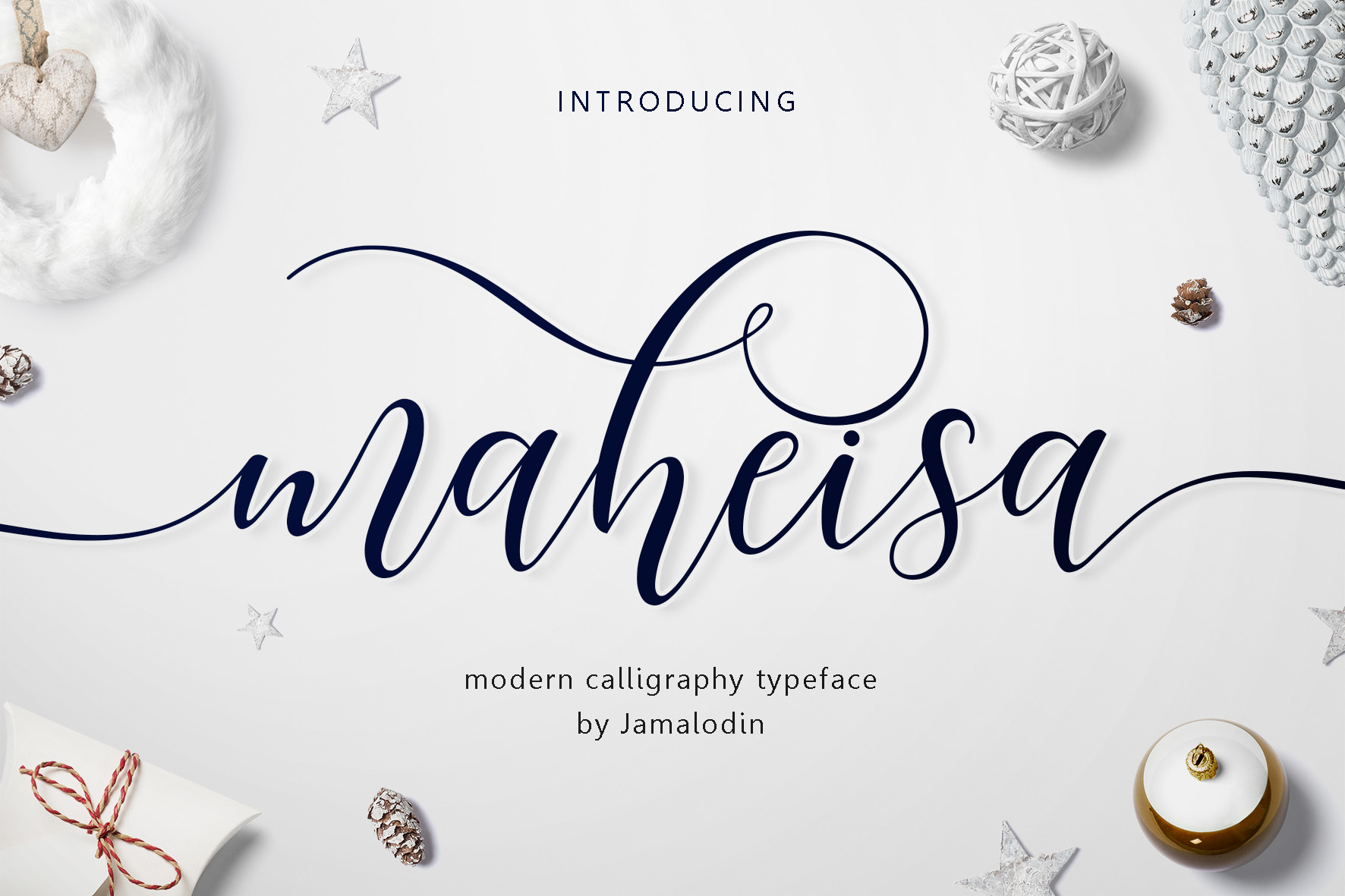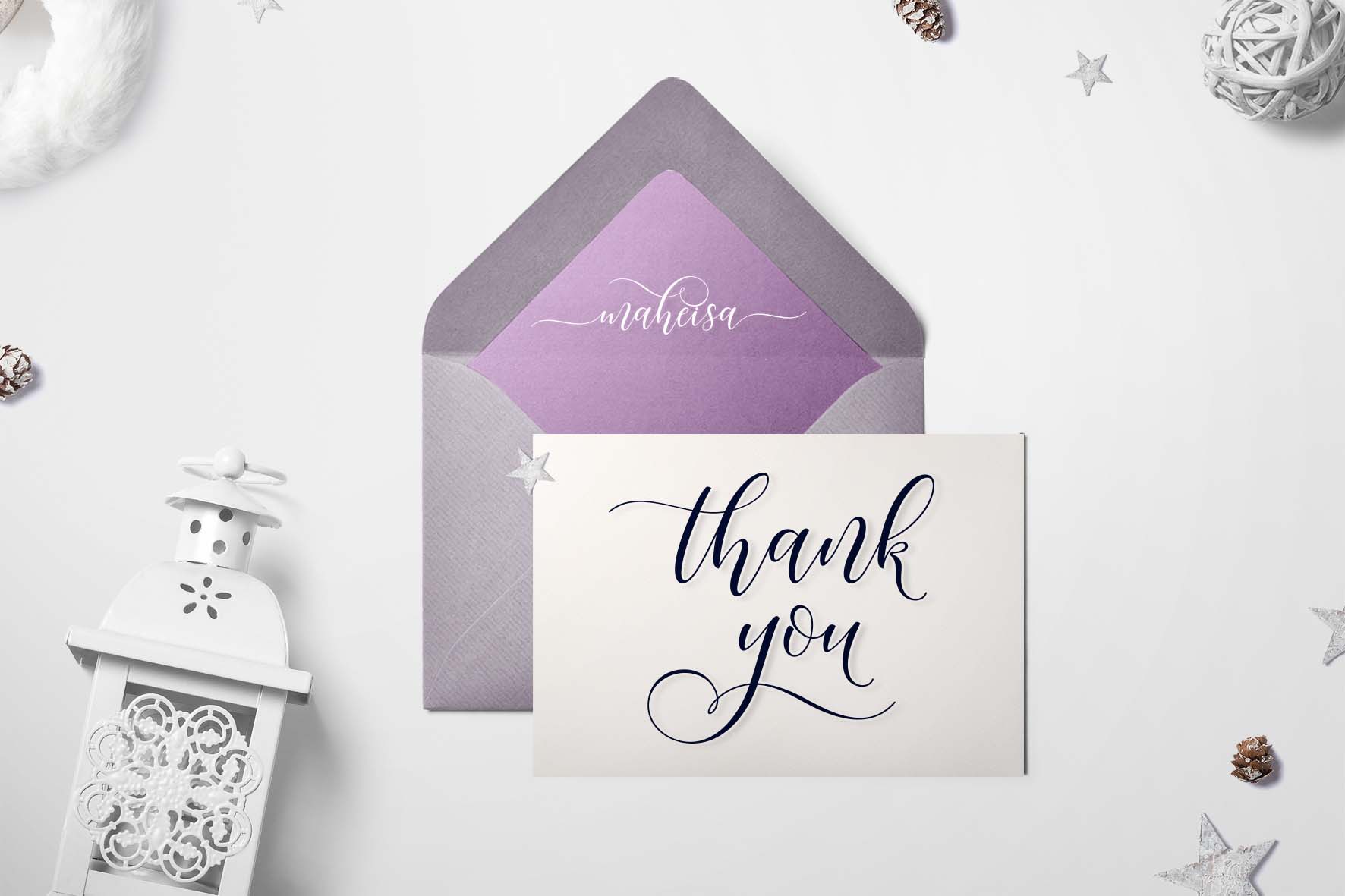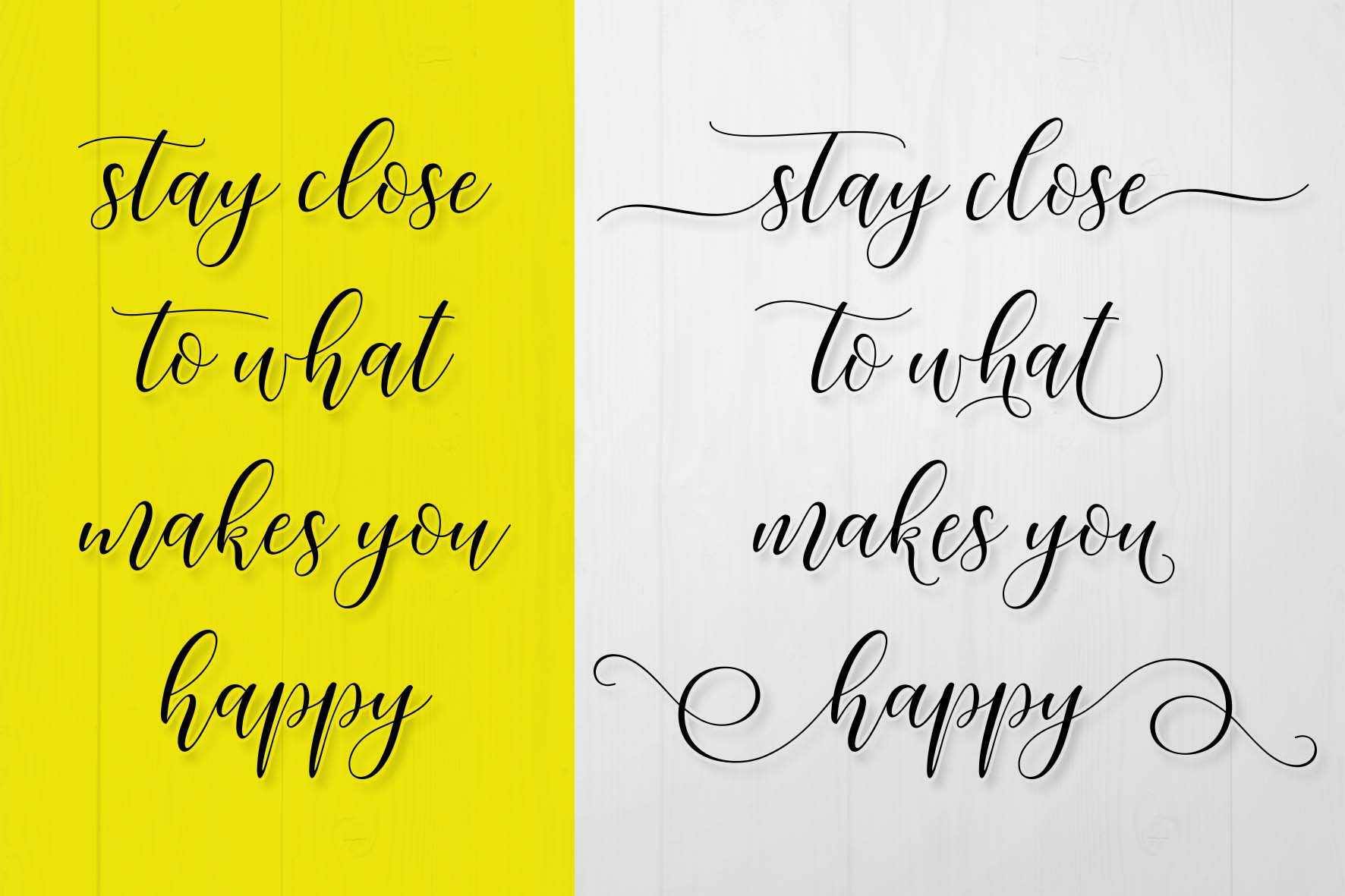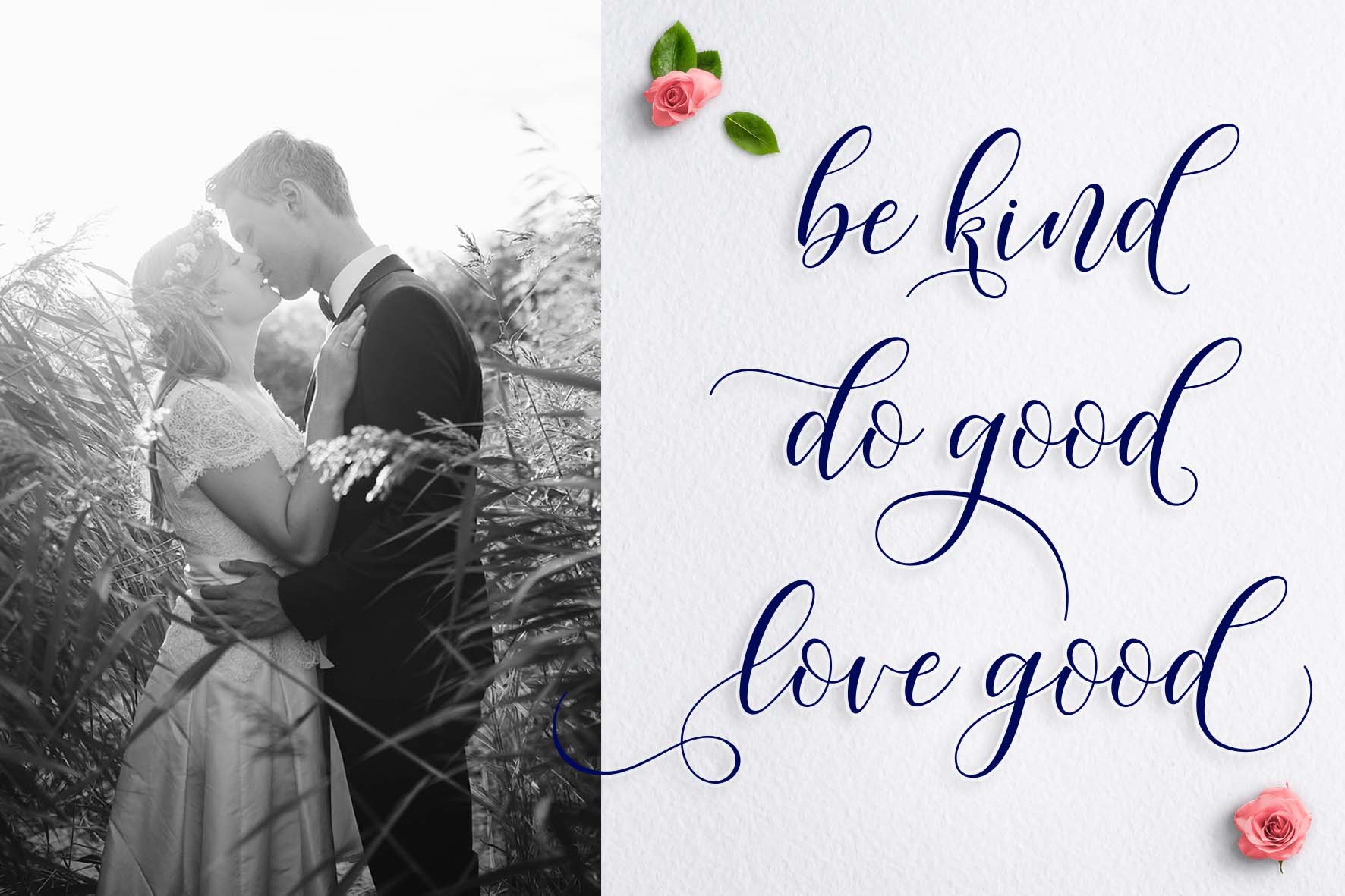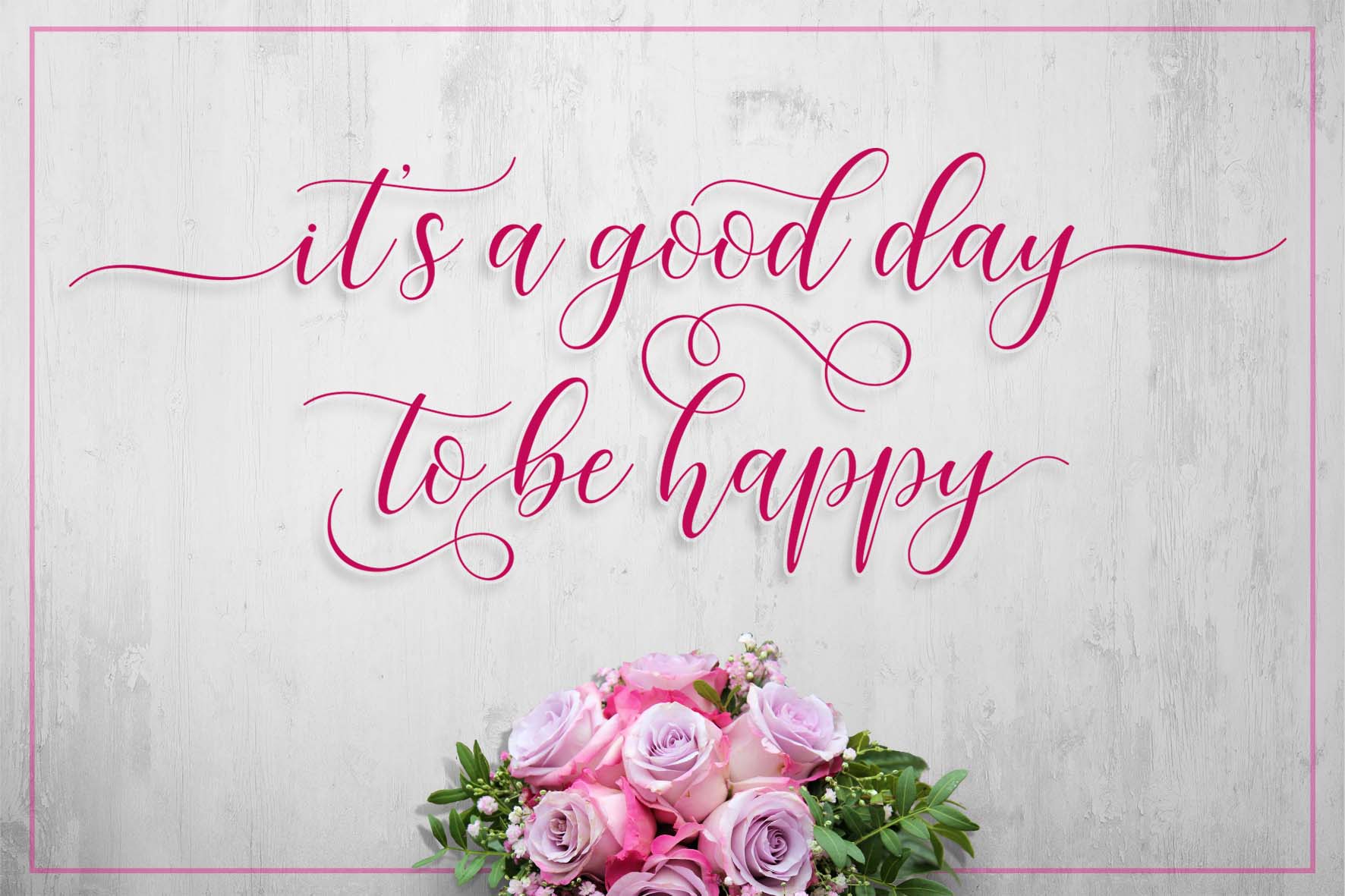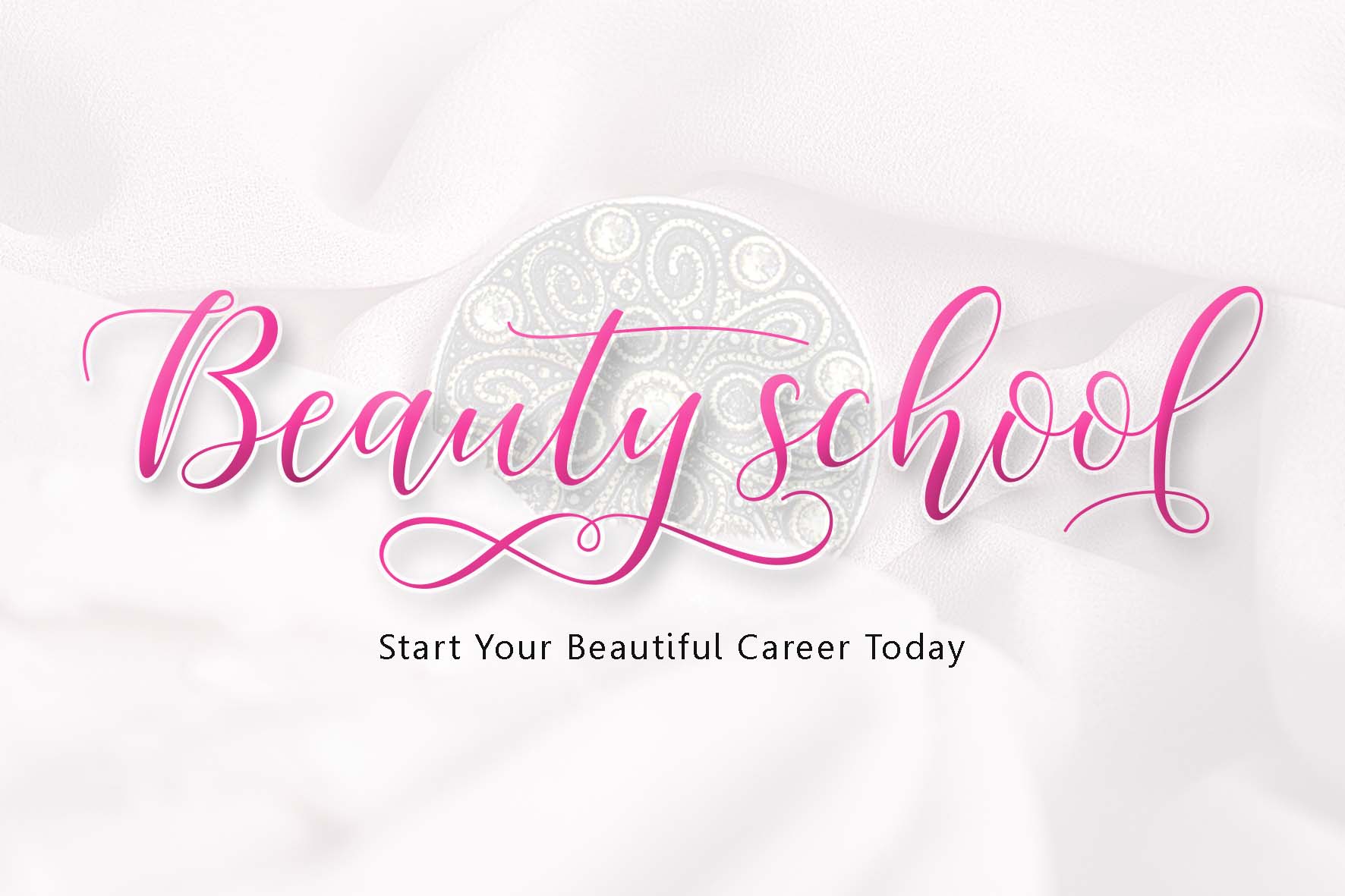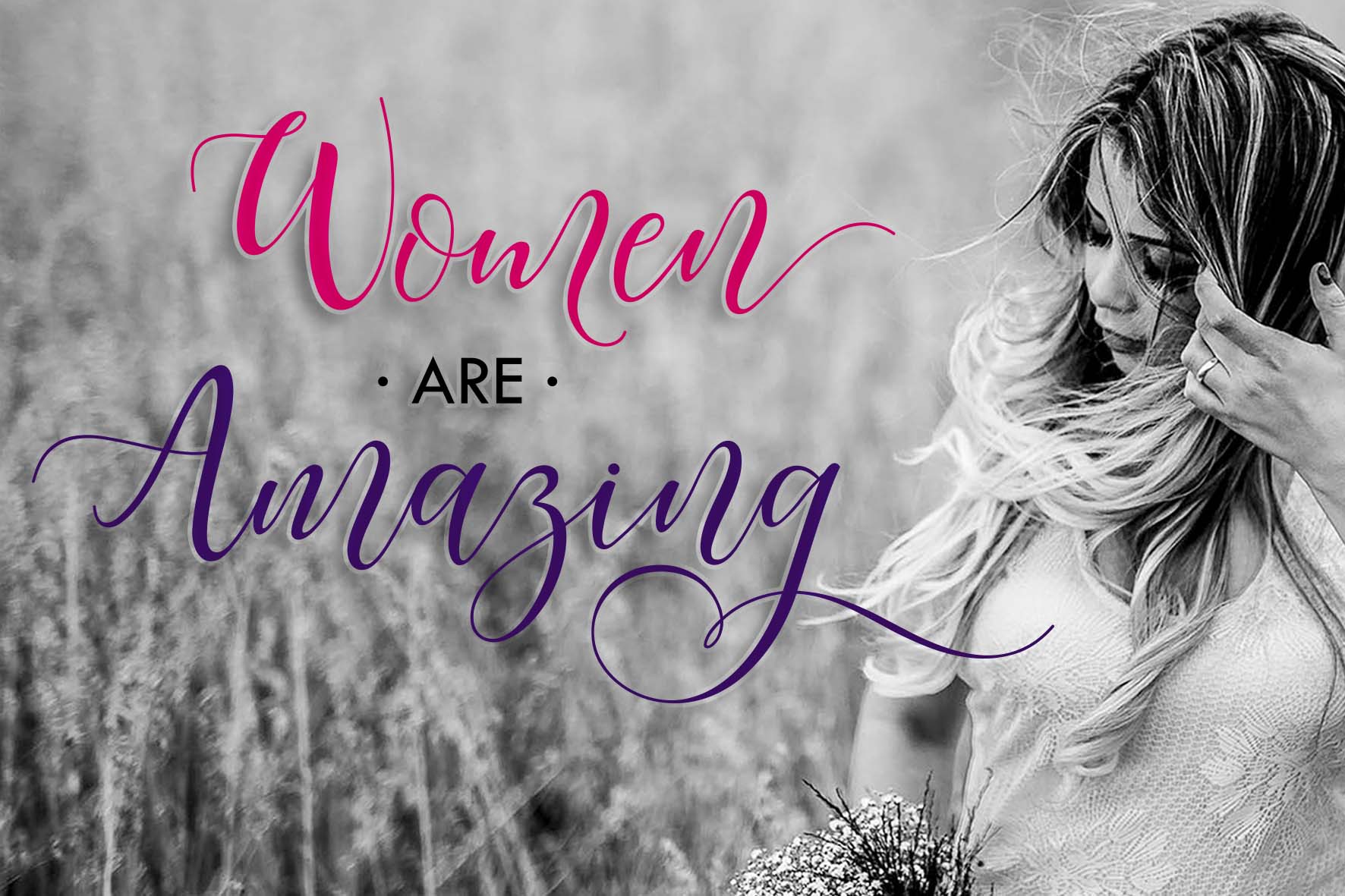
Maheisa Font
About Maheisa Font
Maheisa Script is a modern typeface. Each letter has been carefully crafted to create a stunning look.
The Maheisa Script features over 600 unique glyphs that are packed with alternates with swashes and several other OpenType features.